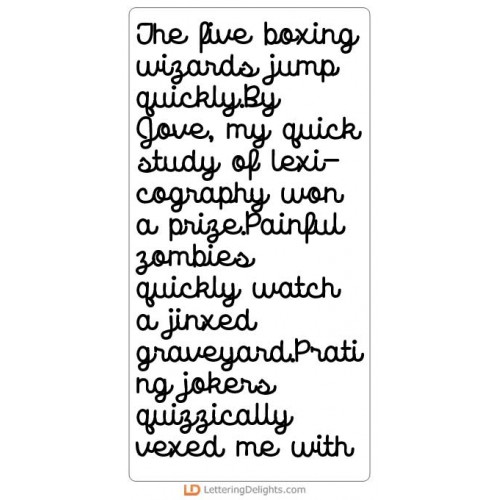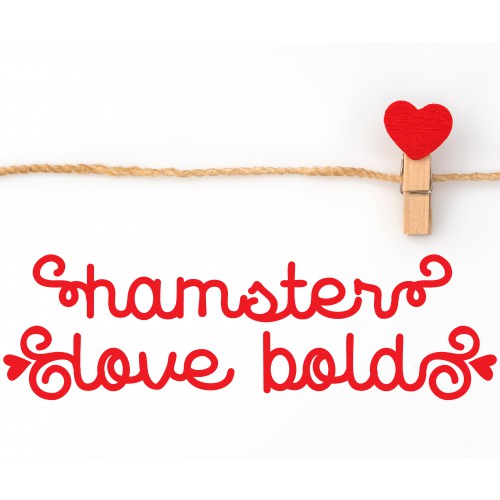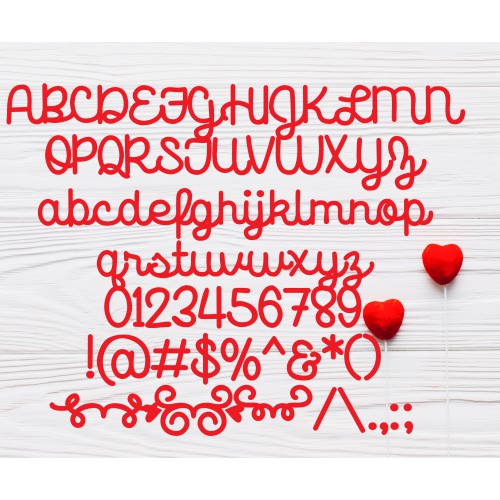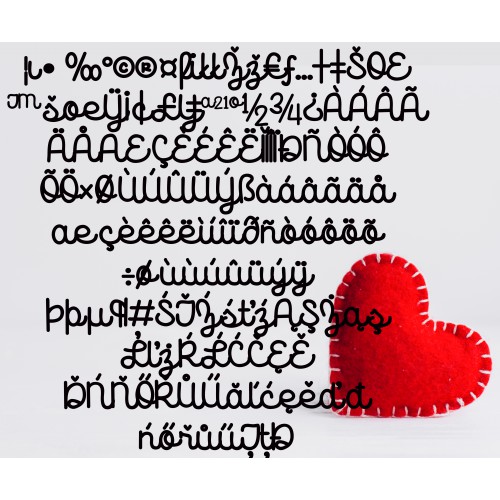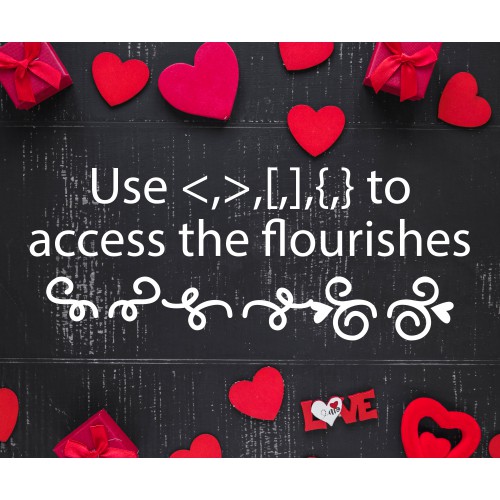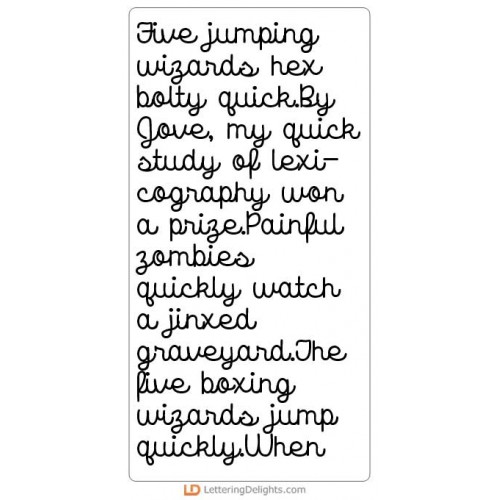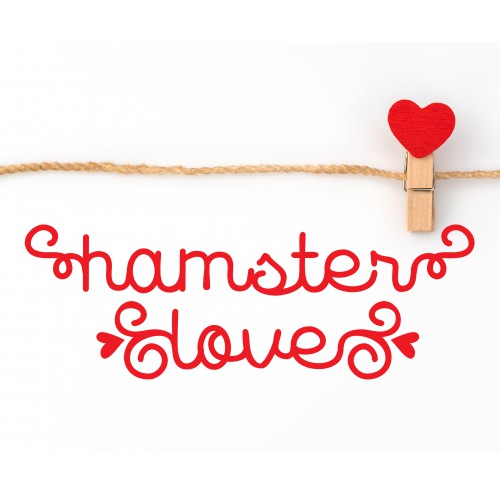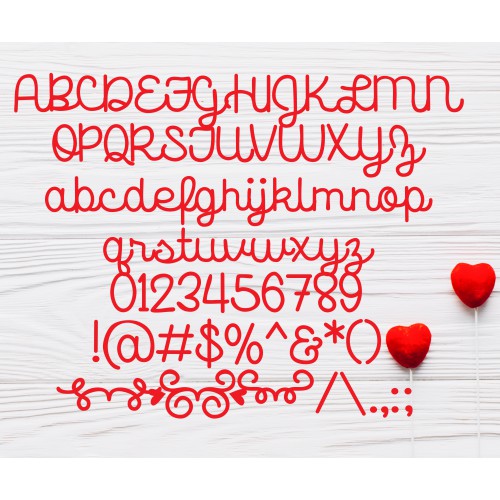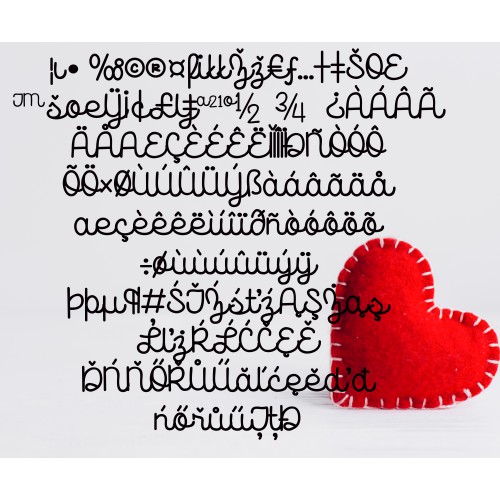
Hatched Animals - Big Bundle
This adorable winged animals collection is freshly hatched and perfect for parties, scrapbooking, cardmaking and more!
ZP Hamster Love Bold - FN
This pretty, upright script has flourished endings that flow seamlessly into the font. Use ,[,],{,} ..
ZP Hamster Love - FN
This pretty, upright script has flourished endings that flow seamlessly into the font. Use ,[,],{,} ..
PN Just Hatched - FN
This cute font is hatching out of eggs and the bullet point is a cracked whole egg...
ZP Mood Ring - FN
You can mix up the cases as you type with this whimsical font for a creative and fun look...
ZP Hatch It All - FN
This blocky and fun font has a lowercase "i" w/ a cracked egg for a dot...
Hatched Animals - CS
These adorable winged animals are freshly hatched and perfect for parties, scrapbooking, cardmaking ..
Hatched Animals - GS
These adorable winged animals are freshly hatched and perfect for parties, scrapbooking, cardmaking ..
Hatched Animals - CP
Grab our adorable winged animals bags. Easy to make and perfect for party favors, gifts, Valentines ..
Hatched Animals - Party - CS
These adorable winged animals are freshly hatched and ready to party! Perfect for parties, scrapbook..
Hatched Animals - Party - GS
These adorable winged animals are freshly hatched and ready to party! Perfect for parties, scrapbook..
Hatched Animals - Party Printables - PR
These adorable winged animals party printables are freshly hatched and ready to party! Perfect for ..
Hatched Animals - AL
Our Hatched Animals alphabet that perfectly coordinates with our Hatched Animals Collection...
Hatched Animals - PP
This darling paper pack coordinates with our Hatched Animals Collection...